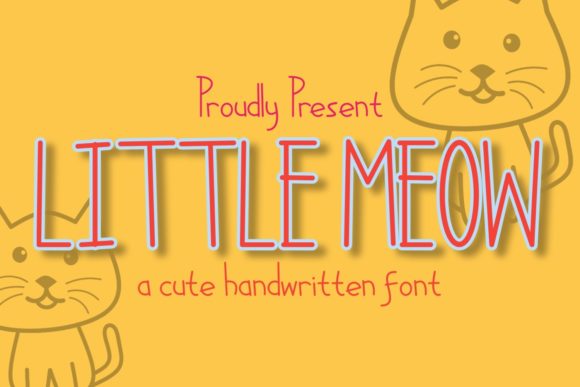
Unleash the charm and personality of your designs with Little Meow Font, a captivating script font family crafted by dhridjie. Little Meow's slender, whimsical strokes are like a delightful dance on paper, adding a touch of playfulness and allure to any project. Let your imagination run wild as you explore the endless possibilities of Little Meow, the perfect choice for watermarks, logos, marketing materials, brand names, magazines, books, children's designs, and so much more.
Little Meow's svelte structure and playful nature make it the ideal font for creating eye-catching watermarks that leave a lasting impression. Use it to add a touch of flair to your photography, artwork, or digital designs. Its delicate strokes and charming personality will captivate your audience, making them yearn for more.
Transform your logos and brand names into captivating works of art with Little Meow's enchanting style. Its unique character will set your brand apart, making it unforgettable and instantly recognizable. Little Meow's ability to evoke emotions and create a lasting connection with your customers is unmatched, fostering loyalty and driving sales.
With Little Meow, your marketing materials will radiate creativity and innovation. Craft brochures, flyers, and posters that grab attention and leave a lasting impression. Its graceful curves and playful personality will engage your audience, compelling them to take action and explore your brand further. Little Meow's magic lies in its ability to turn ordinary words into captivating messages, propelling your marketing efforts to new heights.
Elevate your magazines and books with Little Meow's captivating presence. Its ability to tell stories and evoke emotions through its graceful lines and enchanting charm is unparalleled. Transport your readers to enchanting worlds and create unforgettable experiences. Little Meow's delicate touch will add a touch of magic to any publication, leaving your readers spellbound and eager for more.
Bring your children's designs to life with Little Meow's enchanting spirit. Create絵本, invitations, and other children's materials that spark imagination and ignite creativity. Its playful strokes and whimsical nature will captivate young minds, taking them on extraordinary adventures. Little Meow's ability to connect with children's hearts and imaginations makes it the perfect font for creating cherished memories that will last a lifetime.